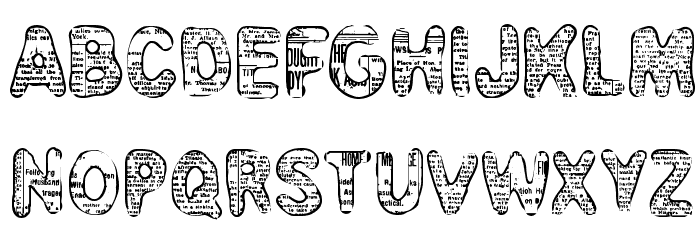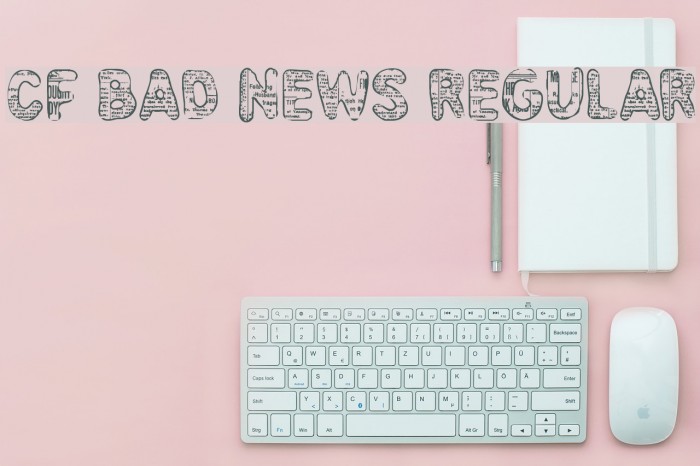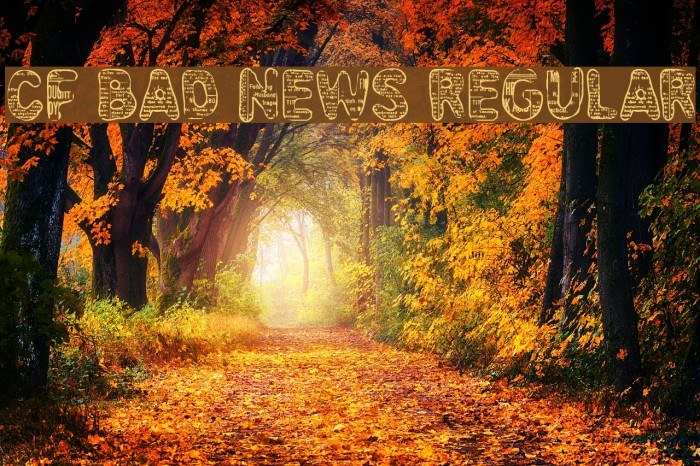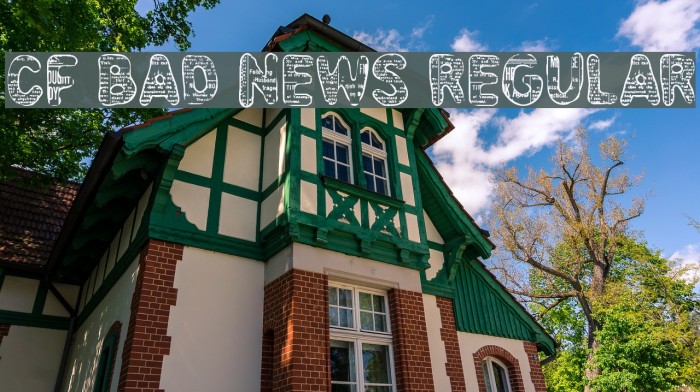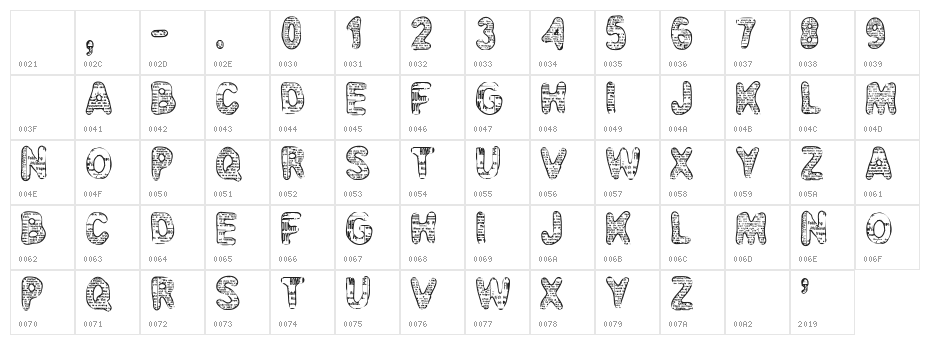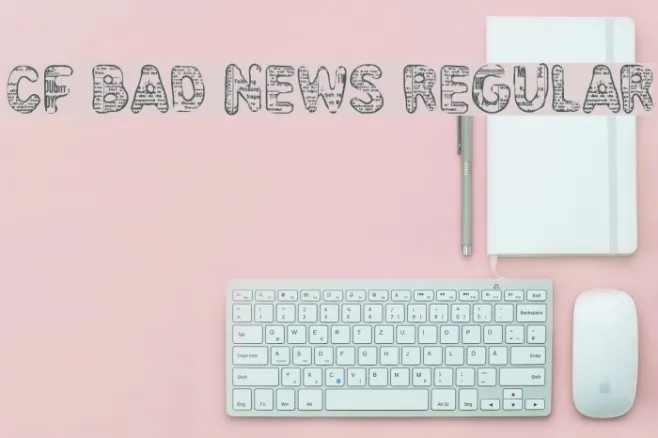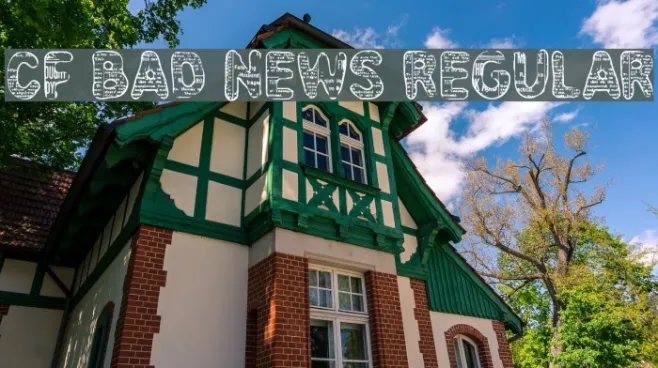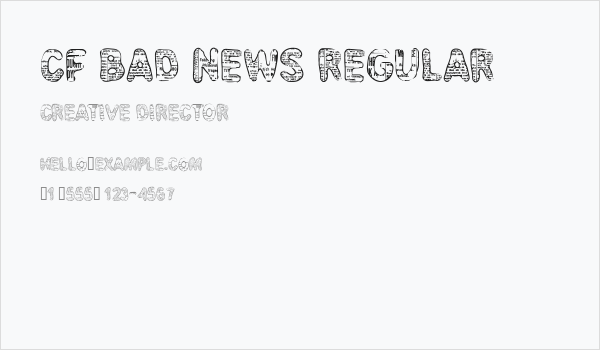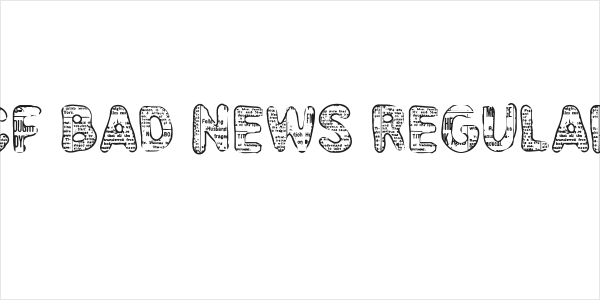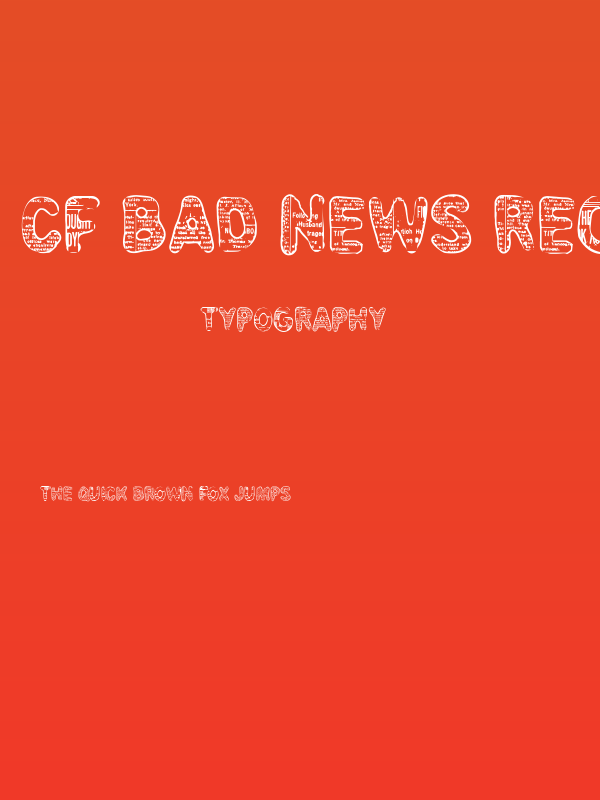
CF Bad News Regular Font
This font features a unique and eye-catching design that incorporates a newspaper print texture within each character. The bold, rounded letters are filled with snippets of text, creating a layered and textured appearance. The uppercase and lowercase letters maintain a consistent style, with a playful yet structured form. Numbers and special characters follow the same design, ensuring a cohesive look across all elements. The font's distinct style makes it ideal for projects that require a vintage or retro feel, while its boldness ensures readability even with the intricate detailing.
A bold, textured font with a newspaper print design, perfect for vintage-themed projects.
- Proposed Projects: Ideal for posters, headlines, branding, and any design work that seeks to evoke a sense of nostalgia or vintage charm.
- Overall Style: Vintage